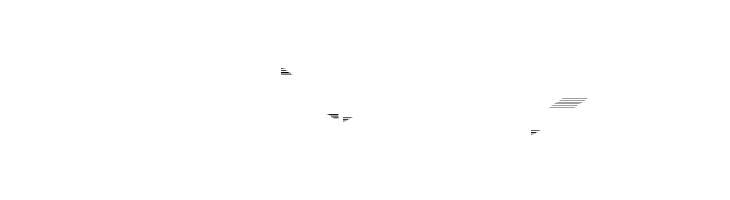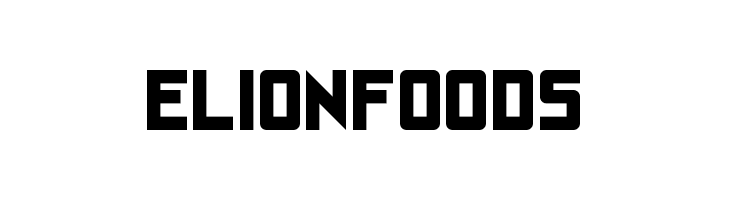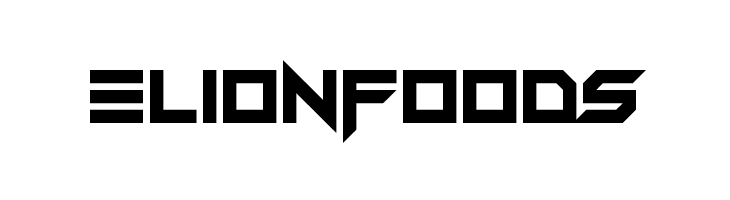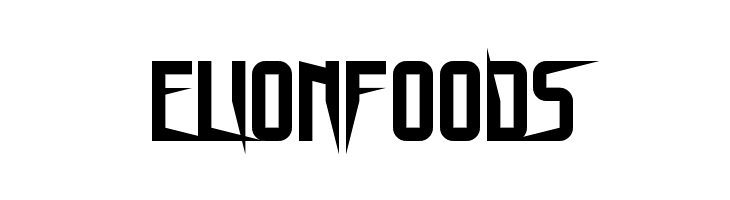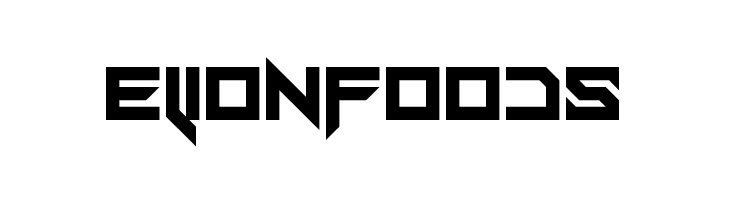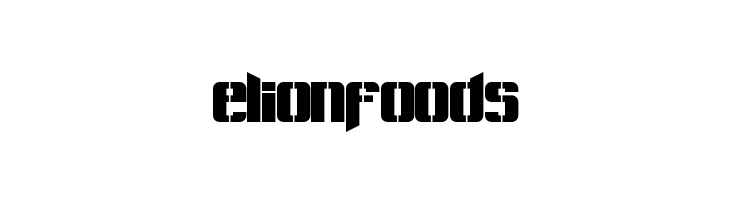
A futuristic, line-based display font with angular and energetic characters.
A bold, geometric font with angular lines and modern design elements.
A futuristic, angular font with sharp edges and a bold, modern style.
A bold, angular font with a runic, tribal aesthetic.
A bold, angular font with a futuristic and edgy design.
A bold, angular font with sharp, splintered edges for a striking appearance.
A bold, gothic-inspired font with sharp, angular lines and dramatic strokes.
A bold, angular font with a futuristic, geometric design.
A bold, geometric font with angular shapes and a futuristic, industrial feel.